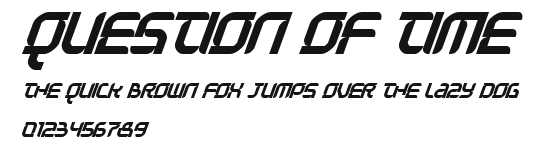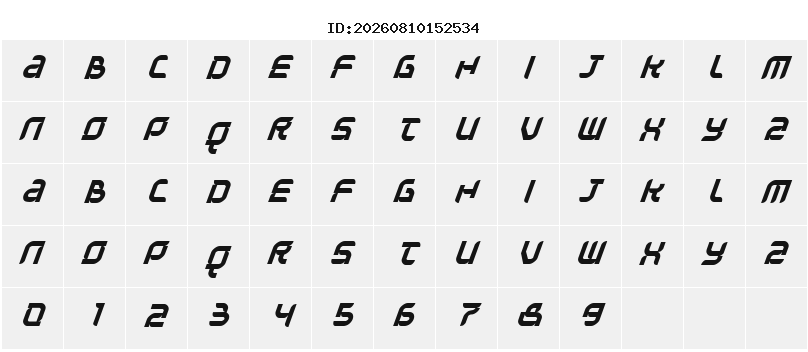
• Font Name: Question of time
• Font ID: Question of time
• Full Font Name: Question of time
• PostScript Name: Questionoftime
About Question of time.ttf
Question of time.ttf is a modern, elegant sans-serif font designed for ultimate readability and visual harmony. Perfect for branding, headlines, web design, and print materials.